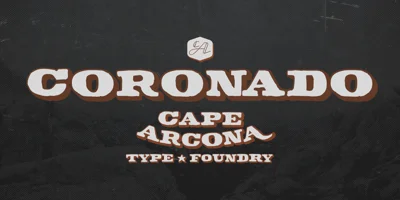
CA Coronado Font
CA Coronado Font is ideal for tropical resort branding, beach-themed designs, summer festival posters, vacation rental marketing, surf shop graphics, coastal restaurant menus, travel agency materials, beach wedding invitations, tropical product packaging, hospitality branding, and any creative project that captures the essence of sunny California coastal lifestyle.
What makes CA Coronado Font exciting is its ability to instantly evoke the laid-back sophistication of Southern California's coastal culture. This typeface captures the perfect balance between relaxed beach vibes and upscale resort elegance, making it an exceptional choice for brands and projects that want to communicate both luxury and approachability. The font's warm character reflects the golden hour magic of Coronado Beach sunsets.
The CA Coronado Font family includes multiple weights and stylistic variations, featuring regular, bold, and light versions along with decorative elements and alternate characters. This comprehensive collection allows designers to create cohesive brand identities that maintain the font's distinctive coastal personality across various applications, from bold headlines to elegant body text.
When searching for distinctive lifestyle typography, CA Coronado Font offers designers an exceptional opportunity to work with a typeface that authentically represents the California coastal aesthetic. This font demonstrates superior craftsmanship in capturing the essence of West Coast design philosophy, combining relaxed sophistication with professional reliability for premium brand applications.
Professional designers value CA Coronado Font for its versatility in creating memorable brand experiences that resonate with luxury lifestyle audiences. The font's sophisticated yet approachable character makes it particularly effective for hospitality brands, premium vacation services, and lifestyle products targeting affluent consumers seeking authentic California experiences.
The timeless appeal of CA Coronado Font lies in its perfect representation of the California dream - that magical combination of luxury, relaxation, and natural beauty that continues to captivate audiences worldwide. This typeface serves as a powerful tool for brands wanting to tap into the aspirational qualities associated with Southern California's coastal lifestyle.
For creative professionals seeking to capture the essence of California coastal elegance, CA Coronado Font represents the perfect typography solution that brings authentic West Coast sophistication to any project, ensuring designs reflect the premium quality and laid-back luxury that defines the Coronado experience.